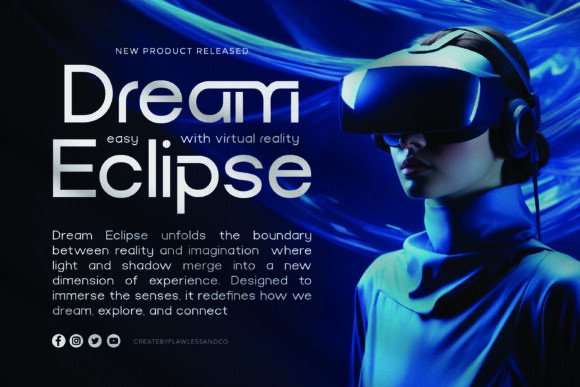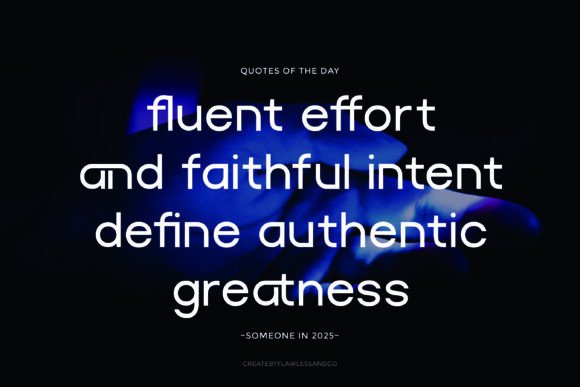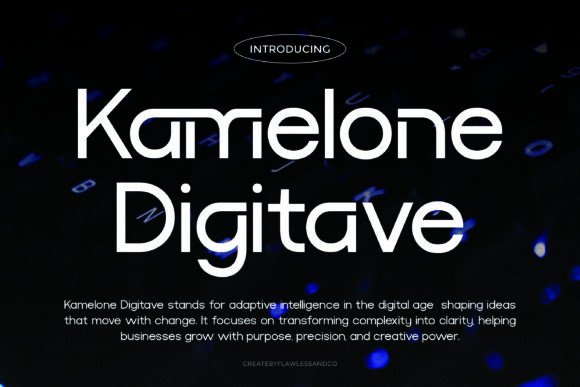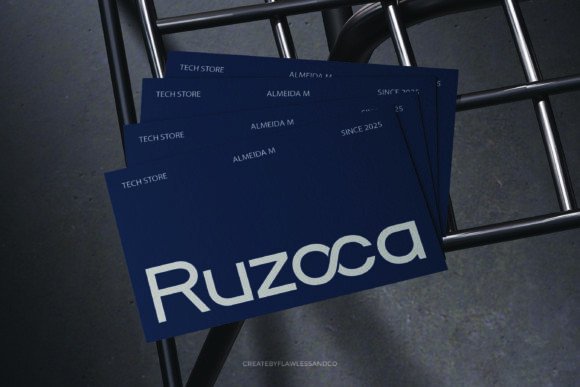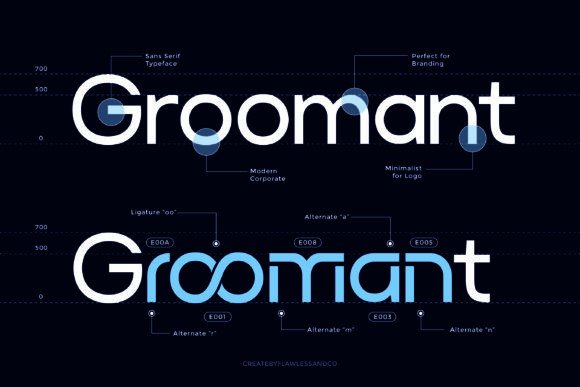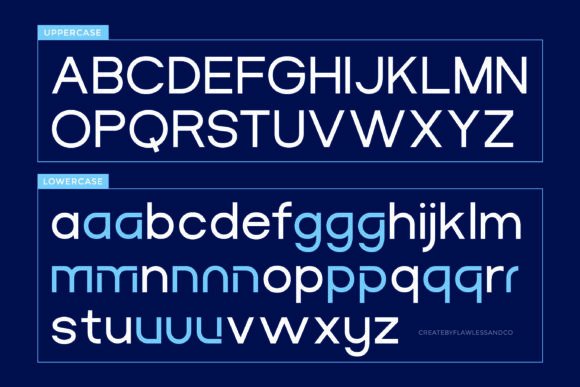
Introducing Brigten Font: Elevate Your Brand with Modern Sophistication
In the world of typography, a well-crafted font can make all the difference in creating a lasting impression. For professionals and designers seeking a modern, sleek, and sophisticated look, Brigten Font is an exceptional choice. This modern sans serif font is specifically designed for professional branding, corporate identity, and logo design, offering a confident and refined aesthetic that elevates any visual communication.
Clean Geometry, Precise Curves, and Refined Proportions
Brigten Font boasts clean geometry, precise curves, and refined proportions, making it an ideal choice for designers and crafters. The font’s modern sans serif design ensures a crisp and contemporary look, perfect for creating a strong brand identity. The precise curves and refined proportions add a touch of sophistication, setting Brigten apart from other fonts in its category.
Key Features of Brigten Font
- Modern Sans Serif Design: Brigten’s sleek and contemporary design makes it perfect for modern brands and corporate identities.
- Clean Geometry: The font’s clean geometry ensures a crisp and clear appearance, even at small sizes.
- Precise Curves: Brigten’s precise curves add a touch of sophistication and elegance to any design.
- Refined Proportions: The font’s refined proportions ensure a balanced and harmonious look, making it ideal for logo design and branding.
Why Choose Brigten Font?
Brigten Font offers a unique combination of modernity, sophistication, and versatility, making it an excellent choice for designers and crafters. Here are some reasons why you should consider Brigten for your next project:
- Versatility: Brigten Font is suitable for a wide range of applications, from logo design and branding to digital and print media.
- Legibility: The font’s clean design and precise curves ensure excellent legibility, even at small sizes.
- Uniqueness: Brigten’s modern sans serif design sets it apart from more traditional fonts, giving your brand a distinctive look.
- Professionalism: The font’s sophisticated aesthetic makes it perfect for professional branding and corporate identity.
How to Use Brigten Font in Your Designs
Brigten Font can be used in a variety of design applications, from logo design and branding to digital and print media. Here are some tips on how to incorporate Brigten into your designs:
- Logo Design: Use Brigten Font to create a modern and sophisticated logo that reflects your brand’s values and personality.
- Branding: Apply Brigten Font consistently across all your branding materials, including business cards, letterheads, and website headers.
- Digital Media: Use Brigten Font in your digital designs, such as social media graphics, email newsletters, and website content.
- Print Media: Apply Brigten Font to your print materials, including brochures, flyers, and posters.
Brigten Font is a modern sans serif font that offers a unique combination of sophistication, versatility, and legibility. With its clean geometry, precise curves, and refined proportions, Brigten is perfect for professional branding, corporate identity, and logo design. Whether you’re a designer, crafter, or simply looking for a modern font for your project, Brigten Font is an excellent choice. Elevate your visual communication with Brigten Font and create a lasting impression.